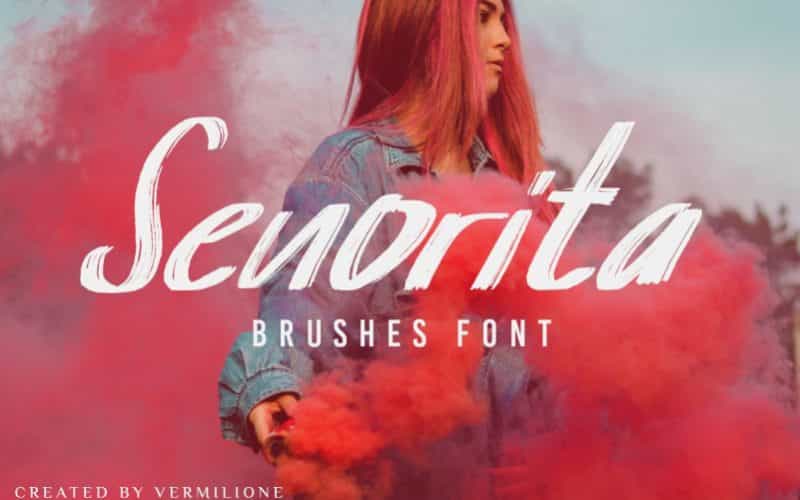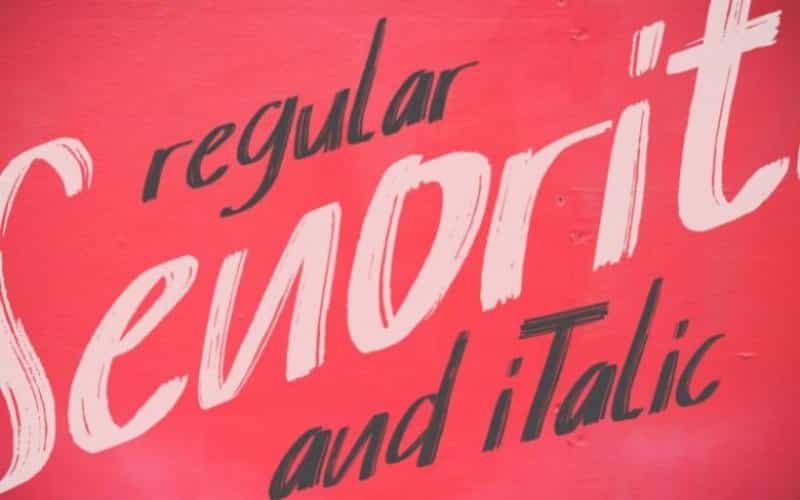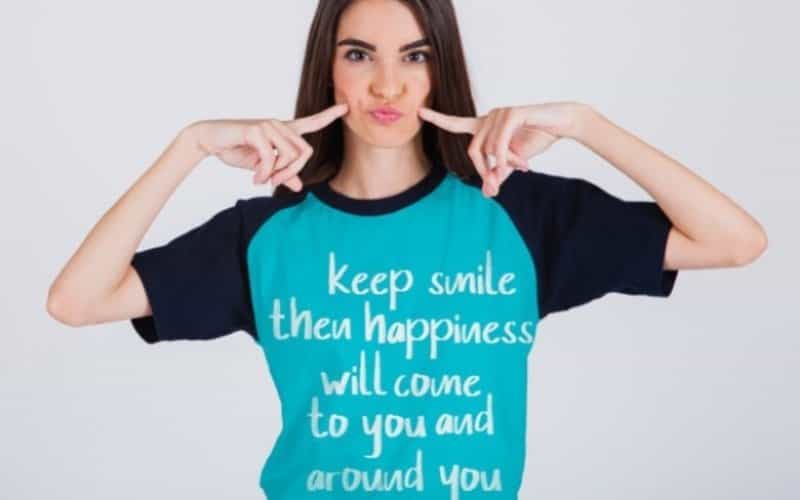
Say meet Senorita, a brush font made by hand, darling! This is a swift, powerful and strong brush font that we can easily alter with two classes: Regular and Italic! Oh, and not to mention that it looks extraordinary in both all-caps and in lowercase – all of this letting you have options.